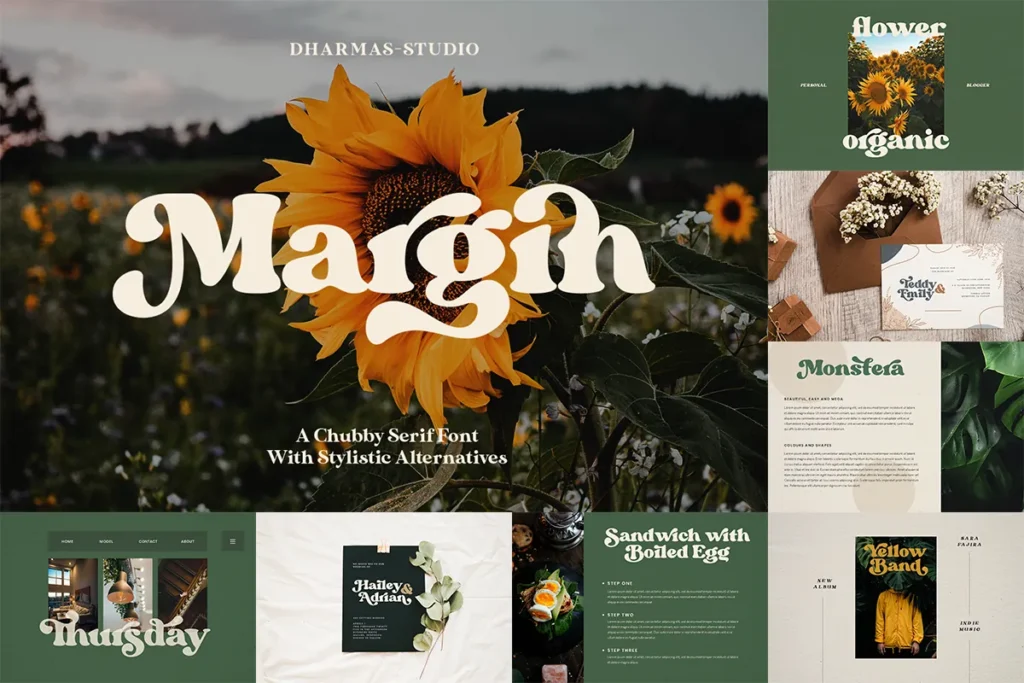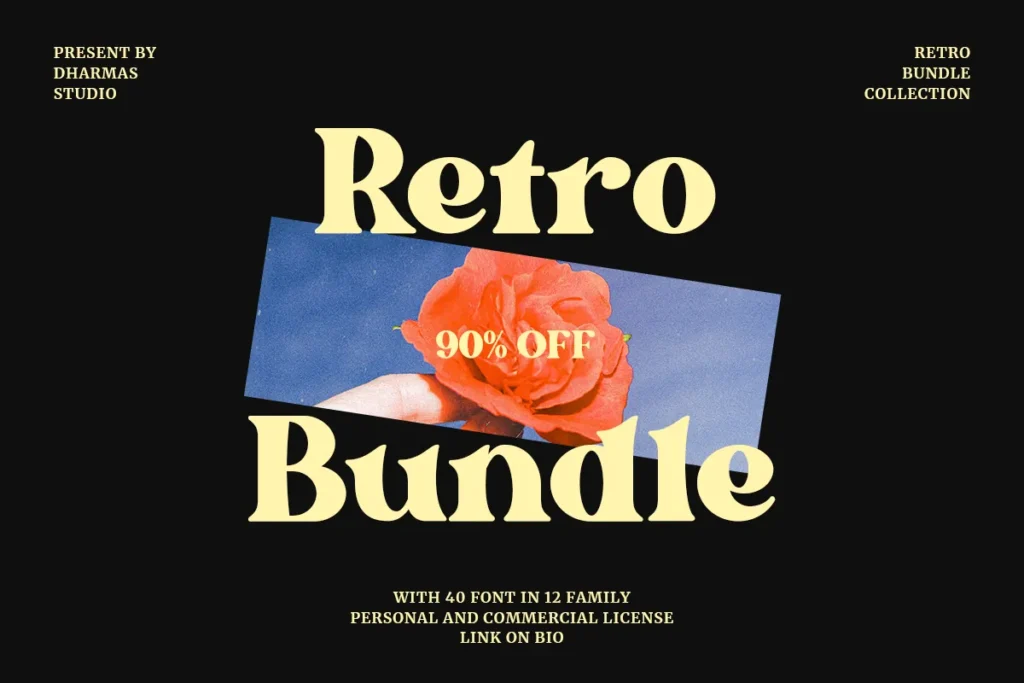
THE BEST OFFER BUNDLE IN OUR SHOP IS FINALLY HERE! A lot of fonts for your projects are in one place. With this Retro Collection, you can design stylish logotypes for your clients, create gorgeous branding, logos, blog, social media, wedding invitations, posters, magazines, and others. This bundle contains 40 fonts, with a total 12 families inside.
This bundle is perfect for BRANDING and LOGO DESIGN.
You will get unique, classy and elegant fonts to help make your branding stand out.
Margin
Bright
Nighty
Gunydrops
Transcity
Bon Foyage
Nambya
Swipe
Night Empty
Kelpo
Average
George
Get over
40 fonts in 12 unique retro typeface packed together.
Includes unique serif fonts, sans serif fonts, display, script, and header fonts with a retro, modern, stylish look.